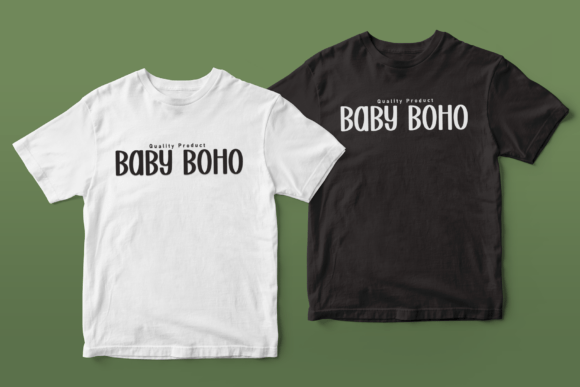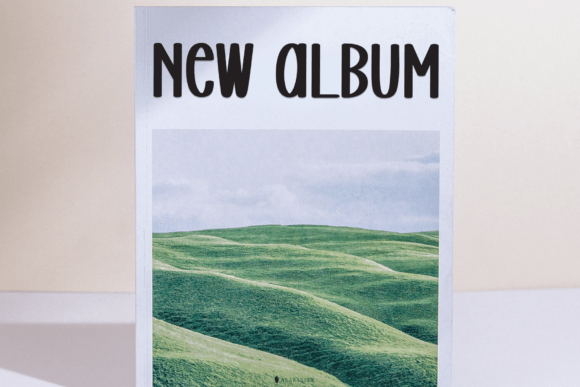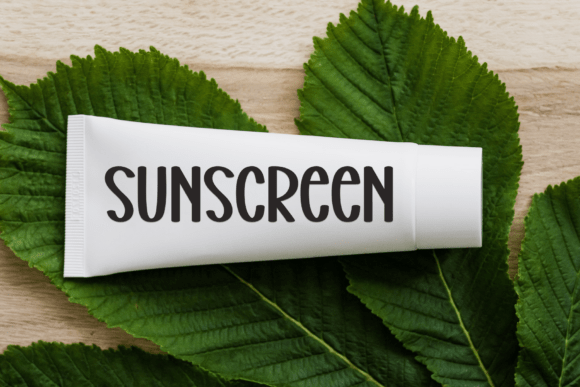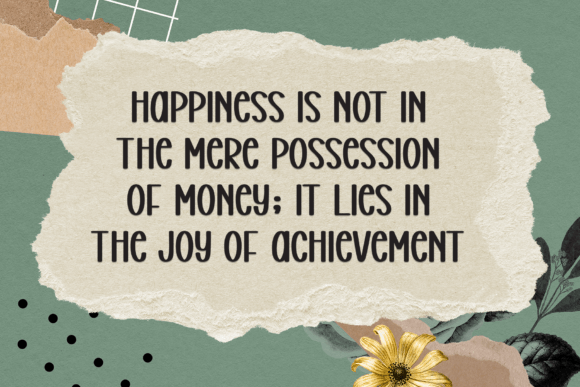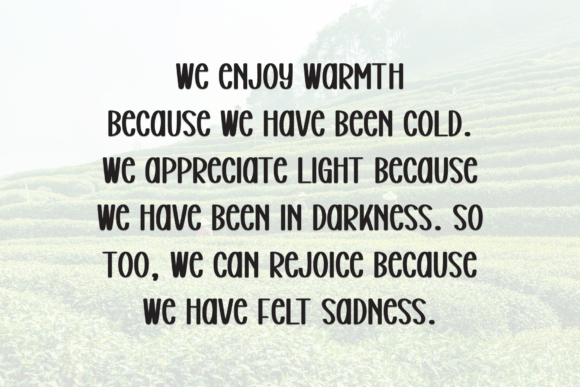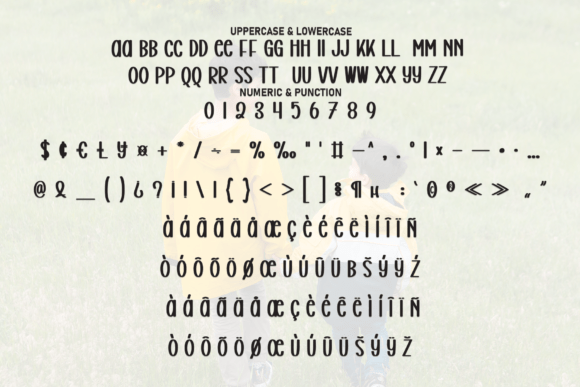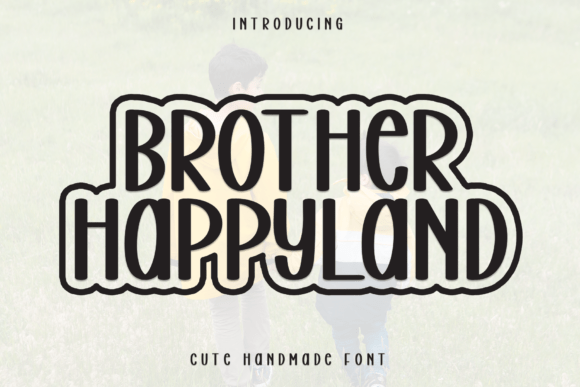
Discover the Charm of Brother Happyland Font: Elevate Your Designs with a Modern yet Laid-Back Vibe
In the world of typography, fonts play a crucial role in conveying the tone and personality of a design. For designers and crafters looking for a font that strikes the perfect balance between modernity and approachability, Brother Happyland is an excellent choice. This neat and casual display font has been gaining popularity for its unique ability to blend clarity with a relaxed, friendly vibe, making it ideal for a wide range of design projects.
The Characteristics of Brother Happyland Font
Brother Happyland font boasts clean lines and friendly letterforms that make it stand out in the world of typography. Its balanced structure is one of its key features, providing a sense of stability and harmony to any design it’s used in. At the same time, it exudes a playful energy that can add a touch of whimsy and fun to your projects. This combination of balance and playfulness ensures that Brother Happyland brings personality to any design without overwhelming the message.
One of the significant advantages of Brother Happyland font is its versatility. It’s perfect for a variety of applications, including headlines, posters, packaging, and branding projects. Whether you’re working on a modern and sleek design or something more laid-back and casual, Brother Happyland adapts seamlessly. Its clarity and readability make it an excellent choice for designs that require both style and substance.
Ideal for Modern yet Laid-Back Designs
In today’s design landscape, there’s a growing demand for fonts that can convey a modern yet laid-back feel. Brother Happyland fits this bill perfectly. Its contemporary look and feel make it suitable for brands and designers who want to appear modern and approachable. At the same time, its casual vibe ensures that the design doesn’t come off as too formal or intimidating. This makes Brother Happyland an excellent choice for brands looking to connect with their audience on a more personal level.
Enhancing Your Designs with Brother Happyland
So, how can you make the most of Brother Happyland in your designs? Here are a few tips:
- Pair it with contrasting fonts: Use Brother Happyland for headlines and pair it with a simpler font for body text to create visual interest and hierarchy.
- Experiment with colors: Don’t be afraid to play around with different colors to find the perfect match for your brand and design.
- Consider the context: Think about where and how your design will be used. Brother Happyland’s friendly vibe makes it perfect for digital and print materials alike.
Brother Happyland font is a fantastic addition to any designer’s toolkit. Its unique blend of modernity and approachability, combined with its versatility and readability, makes it an excellent choice for a wide range of projects. Whether you’re working on a branding campaign, designing a poster, or crafting packaging, Brother Happyland can help elevate your design to the next level. So why not give it a try and see how it can bring a touch of personality and charm to your work?
With Brother Happyland, you’re not just choosing a font; you’re choosing a way to communicate with your audience. Its friendly and approachable vibe makes it perfect for brands that want to connect with their customers on a more personal level. So, go ahead and explore the possibilities with Brother Happyland font. Your designs are sure to thank you!